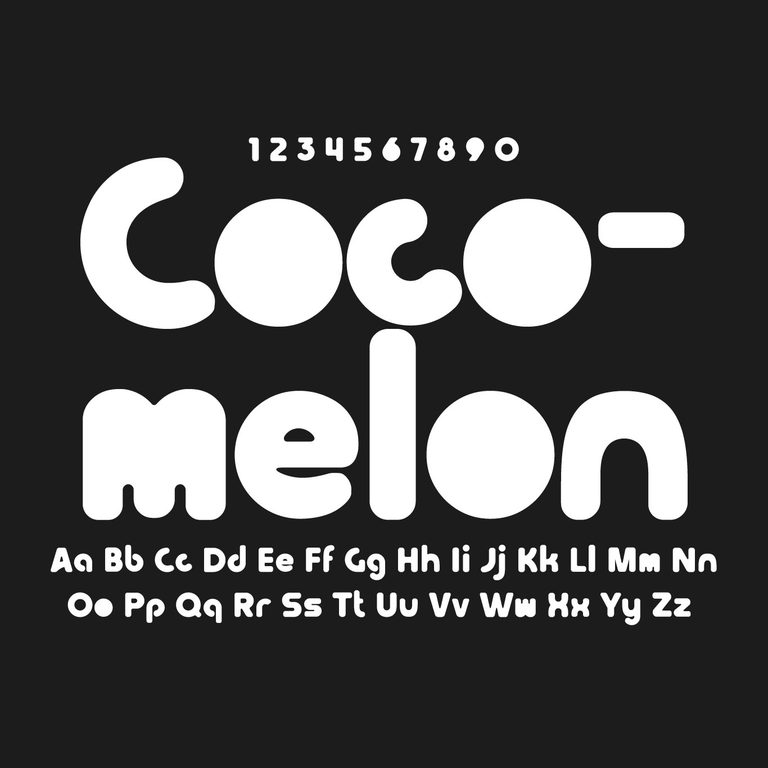
Download Cocomelon font in TTF format. This playful display font is based on the rounded lettering associated with the CoComelon logo and works best for colorful titles, kids graphics and short decorative text.
The letters are wide, soft and heavily rounded, giving the font the same cheerful bubble-like character often seen in children’s entertainment. It works especially well at larger sizes where the chunky shapes have room to stand out.
Classification: Rounded / Display
Best For: Kids graphics, party designs, titles and decorative lettering
The original CoComelon wordmark uses custom lettering rather than a standard retail font. This TTF recreates a similar rounded style for personal design projects and Cocomelon-inspired graphics.
Use it for birthday graphics, children’s posters, party decorations, video thumbnails and short titles. The exaggerated shapes are better suited to display text than paragraphs or small copy.
Bubble Bobble and Formula One have a similar rounded look. Swiss 721 Rounded and Helvetica Rounded are also useful references if you want something cleaner while keeping the soft, friendly shapes.